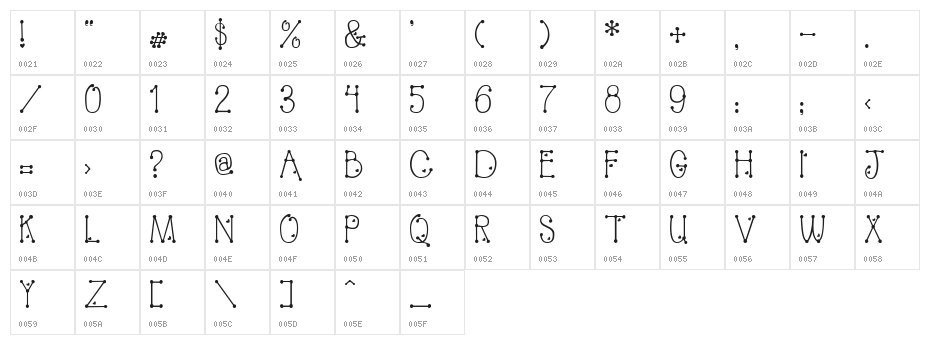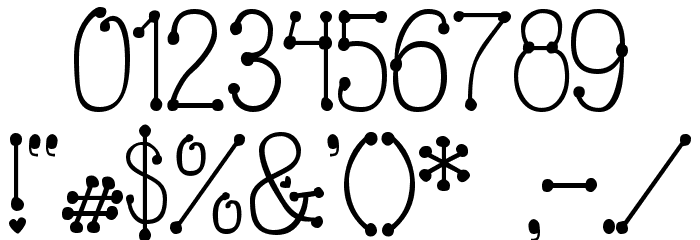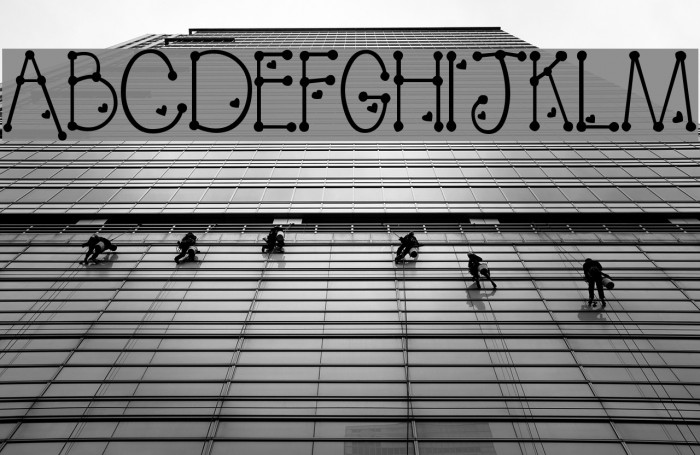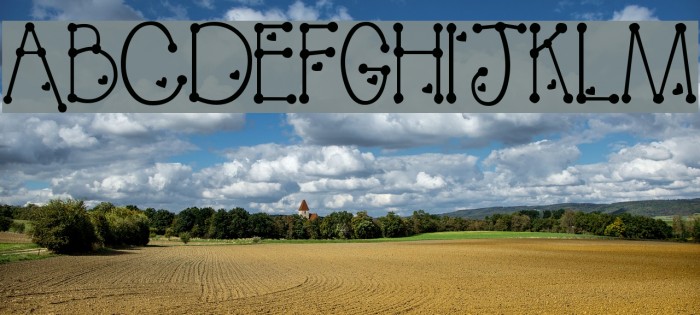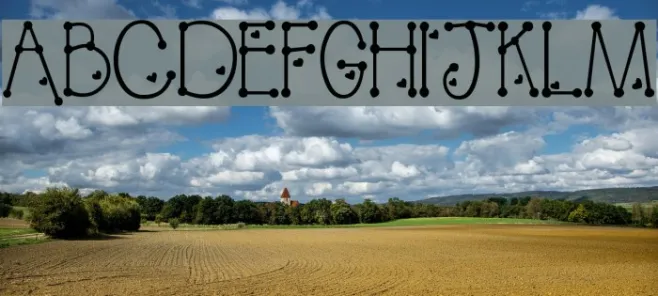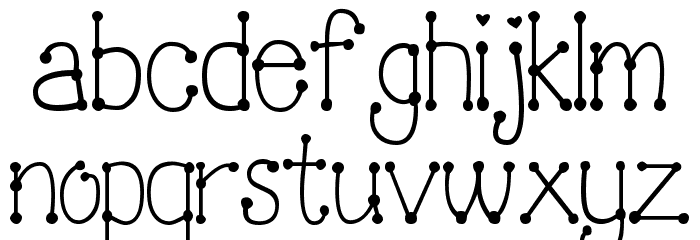
PeggyFont Light Font
PeggyFont Light Description
This font features a playful and whimsical design with a unique dotted pattern that connects each character. The letters are formed with thin lines and small circular dots at key points, creating a distinctive and eye-catching appearance. The uppercase and lowercase letters maintain a consistent style, with rounded edges and a light, airy feel. Numbers and special characters follow the same dotted theme, ensuring a cohesive look across all elements. This font is perfect for projects that require a fun and creative touch, such as children's books, playful branding, or artistic posters.
| Overall Style | Whimsical |
| Use Case | Headlines, Logos, Artistic projects |
| Proposed Projects | Ideal for children's books, playful branding, artistic posters, and creative invitations. |